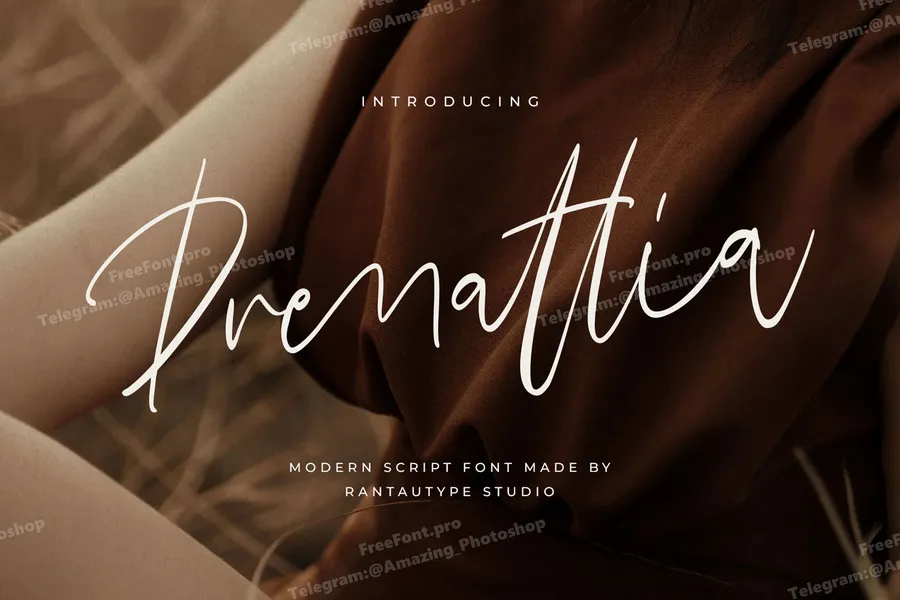
Drenattia is modern script font embrace grace and elegance. Drenattia bring style and trend to make your design awesome. Drenattia is a perfectly choice for any creative endeavor, creating, modern, lifestyle design such as logotype, title, cover, branding, invitations, wedding designs, display and magazine, social media posts, advertisements, printed quotes, product packaging, corporate brand, product designs, labels, photography, watermarks, special events and any other project with handwritten feel.